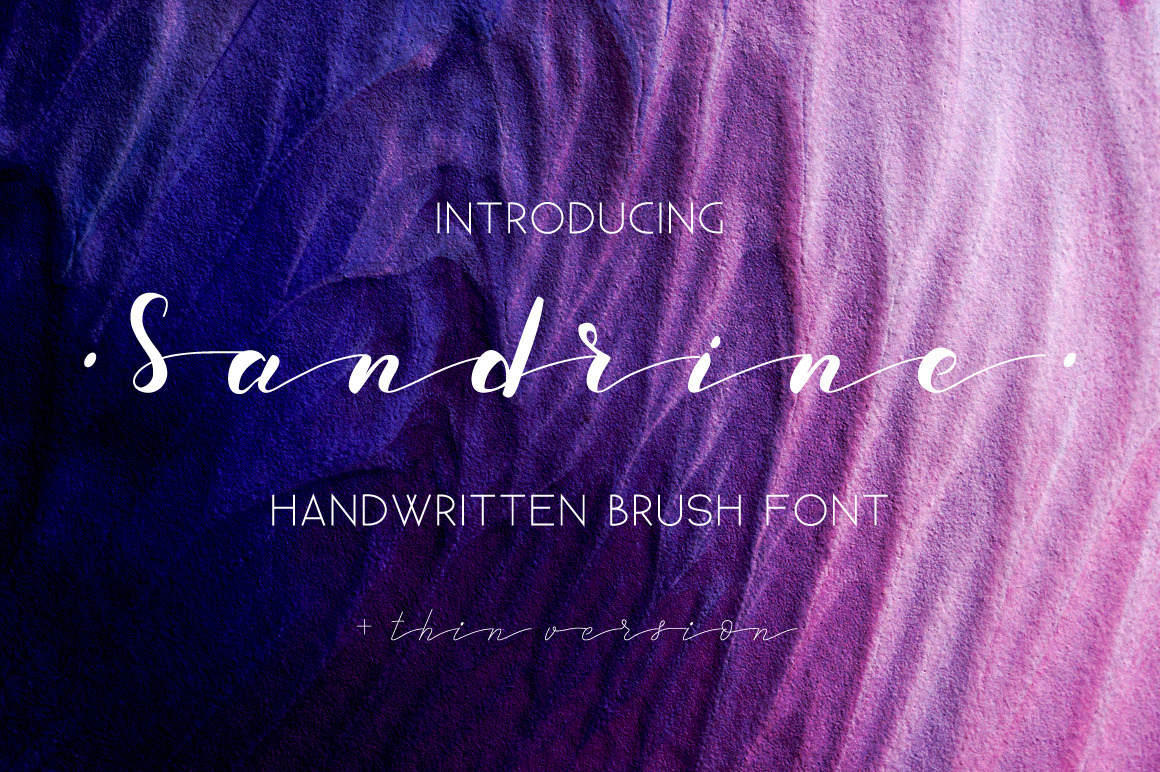
Sandrine Brush Font. Script.
I present to you my new font SANDRINE! This hand lettered font is filled with romance, smooth lines and transitions between letters. This is a great decoration element for your belongings, interior, pillows, shirts, posters, prints, weddings, apparel, packaging, invites, etc. Also you can place these phrases to your photos.